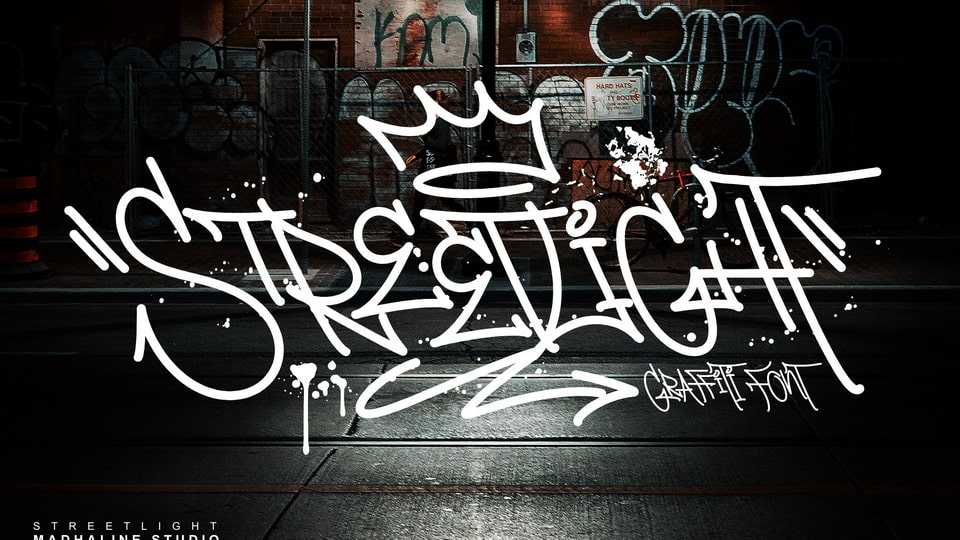
Streetlight Graffiti Font › Fontesk – Download Grátis
Download Streetlight font, a graffiti typeface with a monoline style that is carefully written and adds a unique graffiti style. Streetlight font has a cool font arrangement that makes it look like real graffiti writing.
Designer: MadhalineStudio